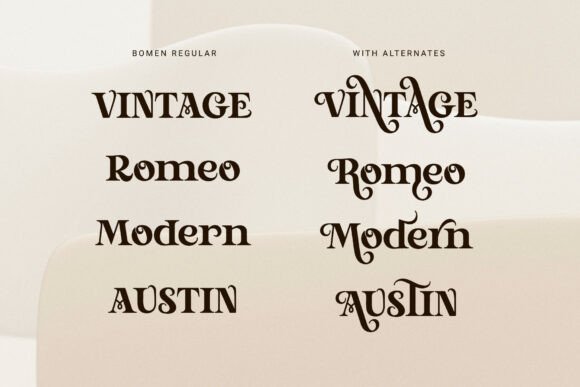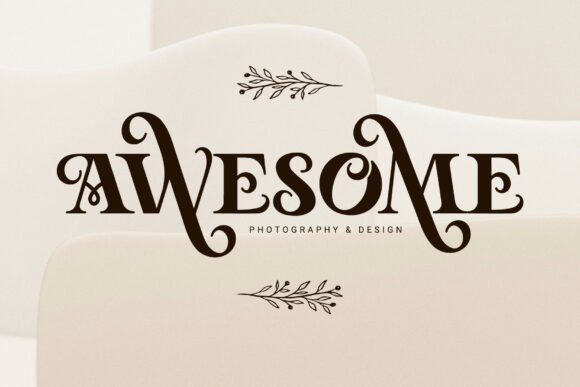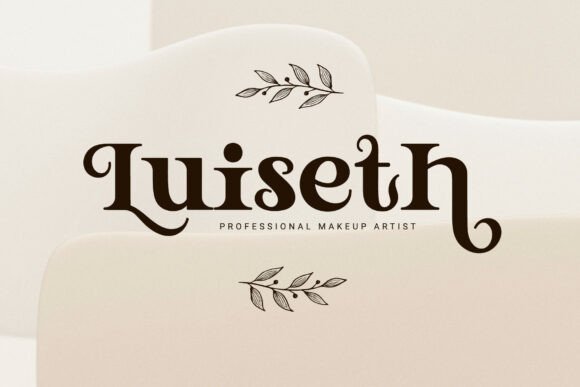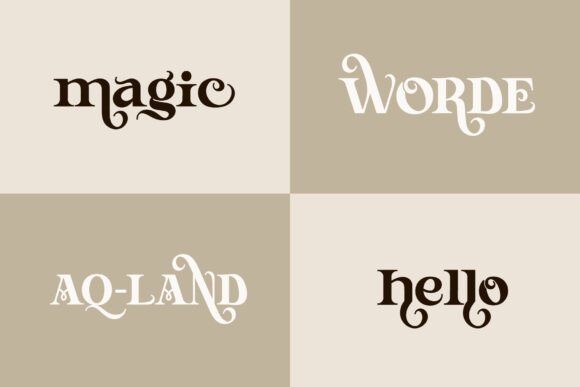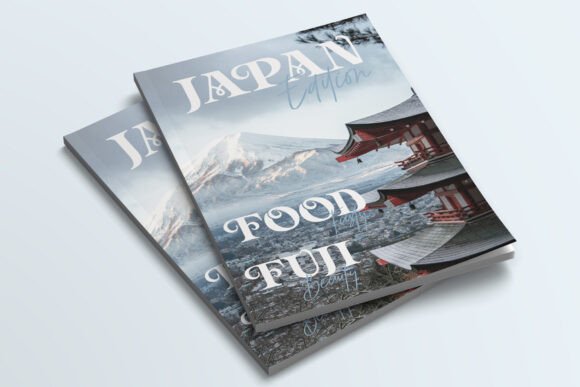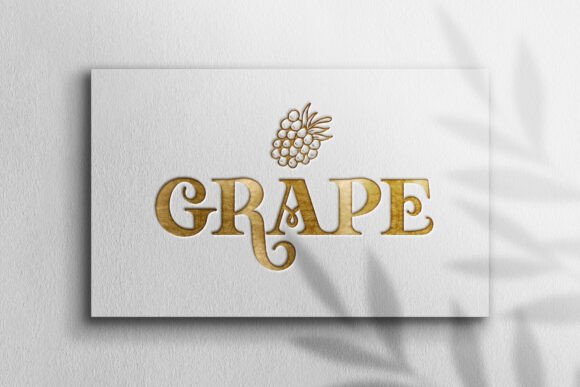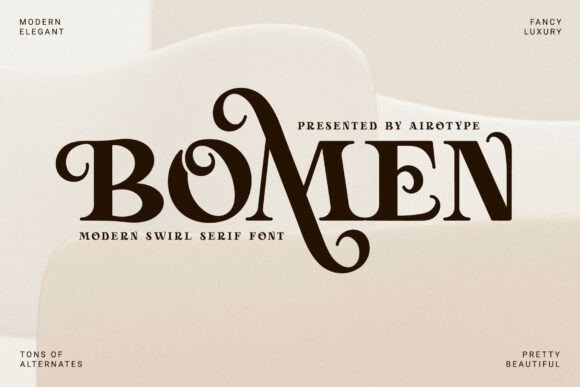
Bomen Font: Elevate Your Designs with Elegance and Sophistication
In the world of typography, fonts play a crucial role in conveying the tone and aesthetic of a design. For designers and crafters seeking a modern yet classic look, Bomen Font is an excellent choice. This stunning serif font seamlessly blends elegance and sophistication with a touch of edginess, making it perfect for a wide range of projects.
The Essence of Bomen Font
Bomen is a modern and elegant serif font that exudes refinement and poise. Its classic design is infused with a subtle edge, giving it a unique and captivating appearance. This font is ideal for designers who want to add a touch of vintage sophistication to their work without compromising on modernity.
One of the standout features of Bomen Font is its versatility. Its elegant and refined design makes it suitable for a diverse range of projects, including:
- Logo Design: Create a lasting impression with a logo that exudes sophistication and elegance.
- Crafting: Add a touch of vintage charm to your crafting projects, such as handmade cards, gift tags, and scrapbooking.
- Wedding Invitations: Make your wedding invitations truly special with a font that conveys romance and elegance.
- Branding: Establish a strong brand identity with a font that reflects your values and aesthetic.
- Signage: Create eye-catching signage that commands attention and leaves a lasting impression.
- Stickers: Add a touch of elegance to your stickers and make them stand out.
- Sublimation: Create stunning sublimation designs that showcase your creativity and style.
- Quotes: Add a touch of sophistication to your quotes and make them truly inspiring.
Why Choose Bomen Font?
With so many fonts available, why choose Bomen Font? Here are just a few reasons:
- Unique Design: Bomen Font boasts a unique and captivating design that sets it apart from other fonts.
- Elegant and Refined: Its elegant and refined design makes it perfect for projects that require a touch of sophistication.
- Modern Vintage Touch: Bomen Font combines modernity with a vintage touch, making it ideal for designers who want to create a distinctive look.
- Easy to Read: Despite its elegant design, Bomen Font is easy to read, making it perfect for body text and headlines.
Tips for Using Bomen Font
To get the most out of Bomen Font, here are a few tips:
- Pair it with Other Fonts: Experiment with pairing Bomen Font with other fonts to create a unique and captivating look.
- Use it for Headlines: Bomen Font is perfect for headlines and titles, where its elegant design can shine.
- Experiment with Colors: Try using Bomen Font with different colors to create a distinctive look that reflects your brand or design style.
In conclusion, Bomen Font is a stunning serif font that offers a perfect blend of elegance, sophistication, and modernity. Its versatility and unique design make it an excellent choice for designers and crafters seeking a font that can elevate their projects. Whether you’re working on a logo, crafting project, wedding invitation, or branding campaign, Bomen Font is sure to impress.